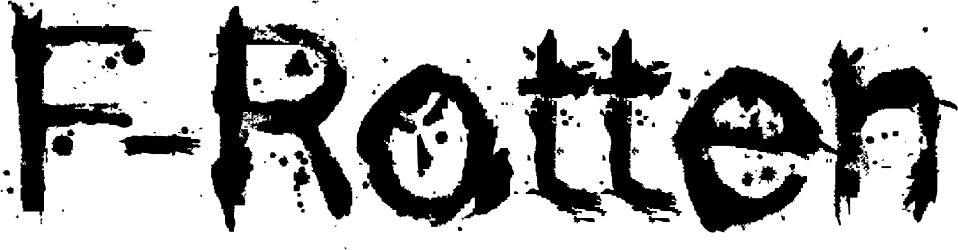
F-Rotten Font
Leave your text design to this destroyed font and consider your project done. F-Rotten features damaged letters and works perfectly for posters, movies, apparel, and so forth. Don’t hesitate and click on the download button without further delay. To get more blood-splatter fonts, check out our limitless website right now.